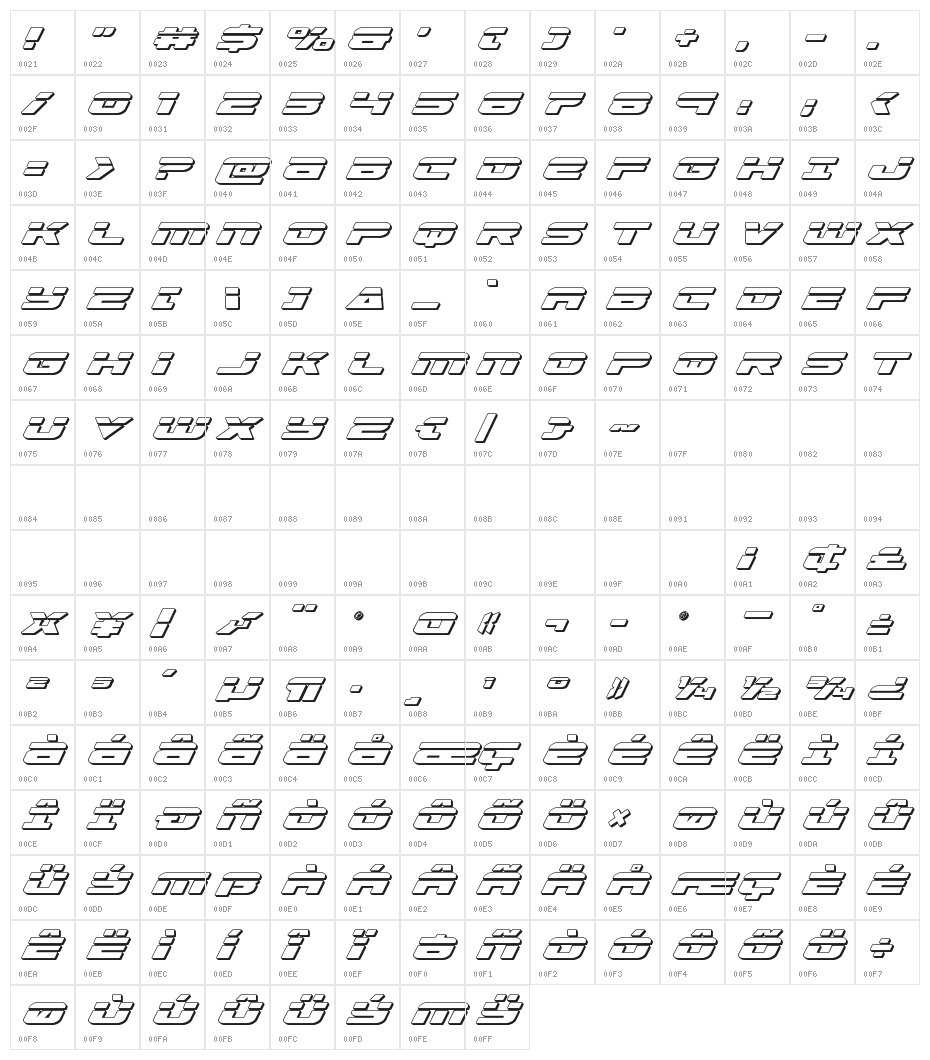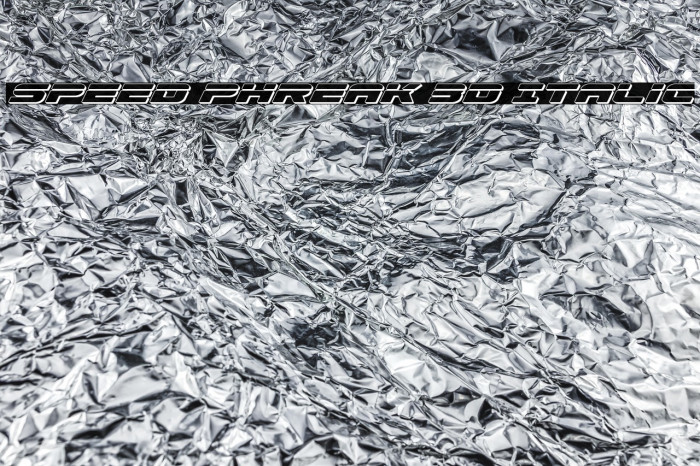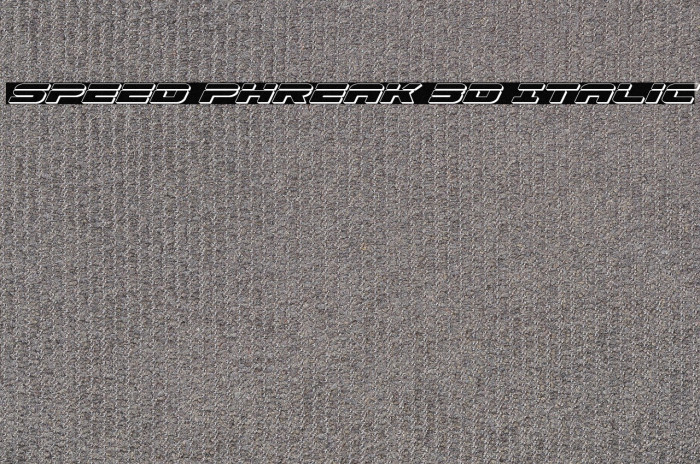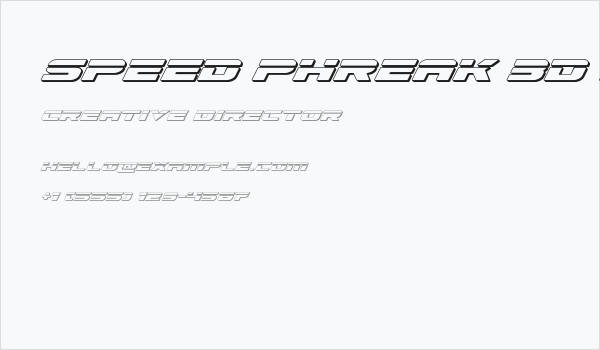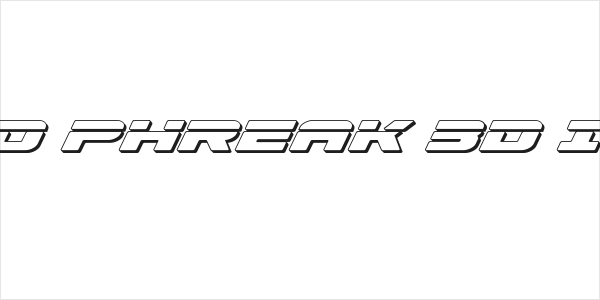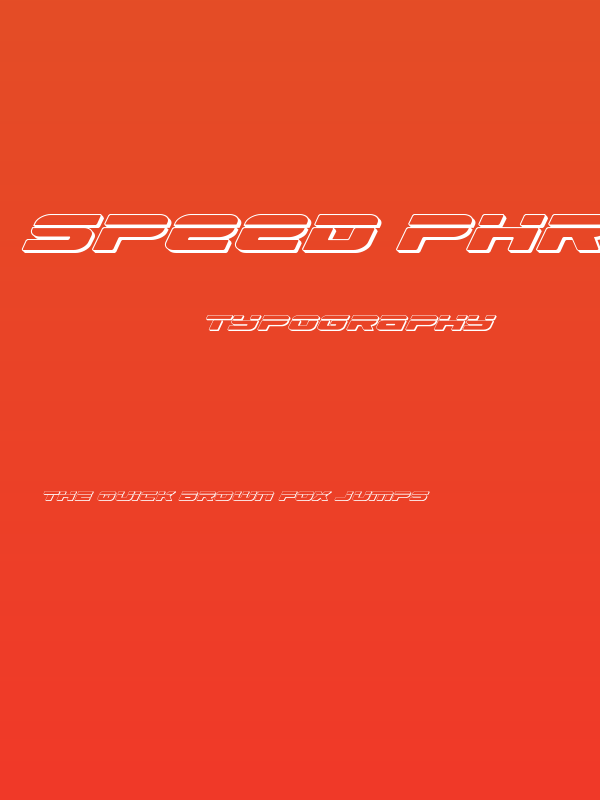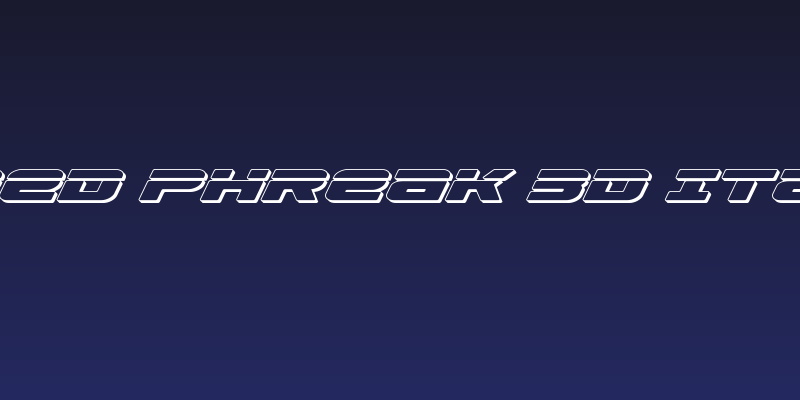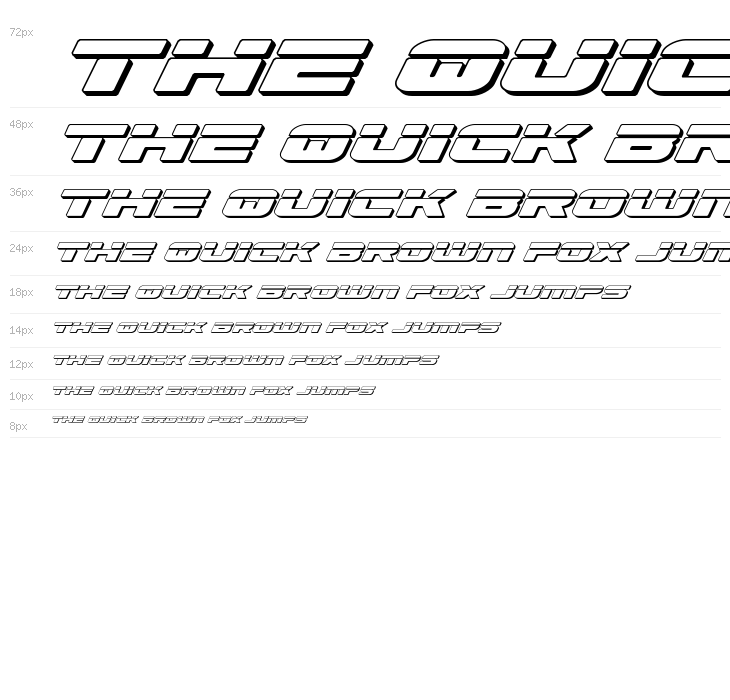
Speed Phreak 3D Italic Font
Speed Phreak 3D Italic Description
This font features a bold, futuristic design with a 3D effect that gives each character a sense of depth and movement. The italicized style adds a dynamic, forward-leaning appearance, enhancing its modern and edgy aesthetic. The characters are outlined, creating a hollow effect that emphasizes the geometric shapes and sharp angles. This font is highly stylized, making it ideal for projects that require a strong visual impact. The uppercase and lowercase letters maintain a consistent style, while the numbers and special characters complement the overall design. The font's unique look is perfect for creative and innovative applications.
| Proposed Projects | Ideal for video game titles, sci-fi movie posters, tech branding, and futuristic event flyers. |